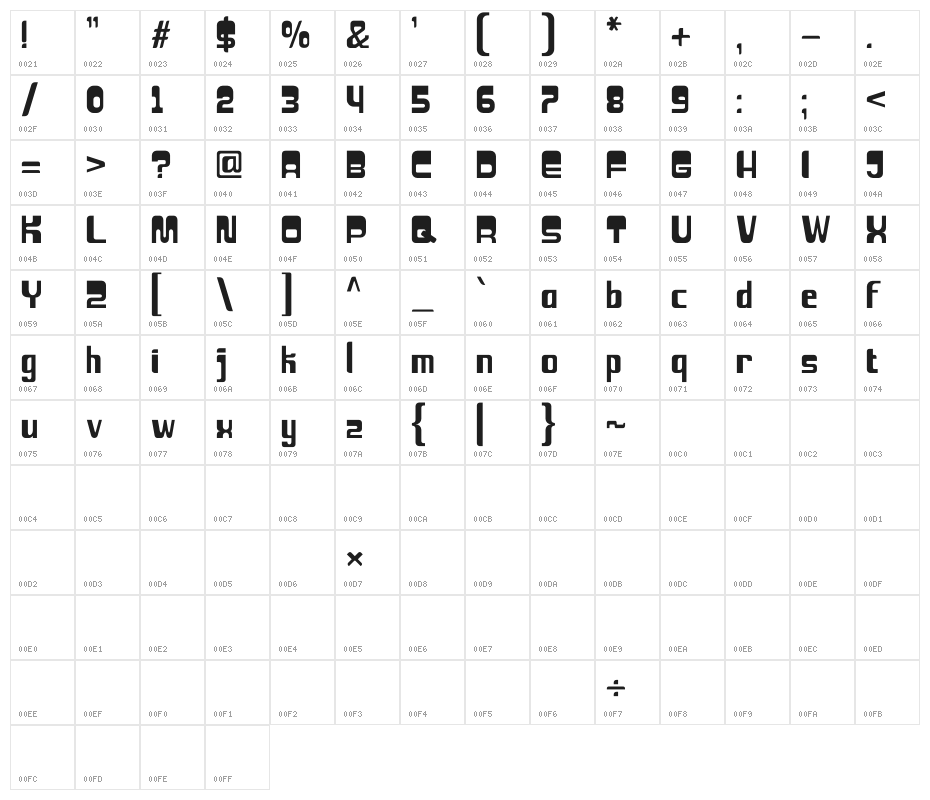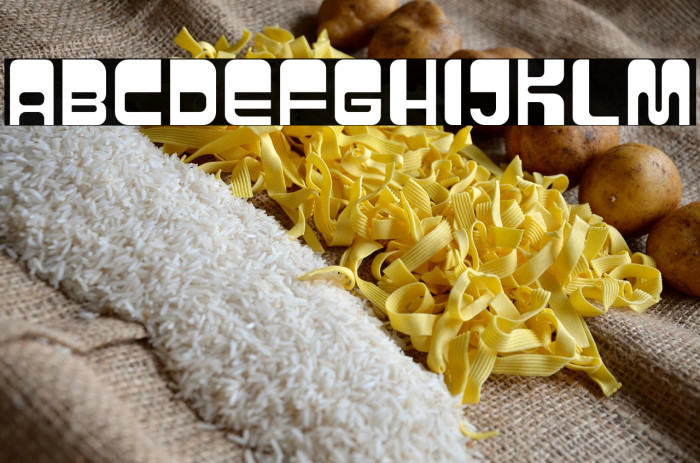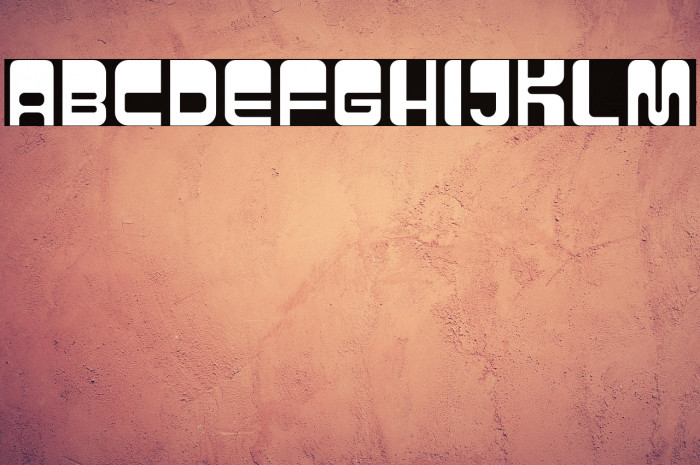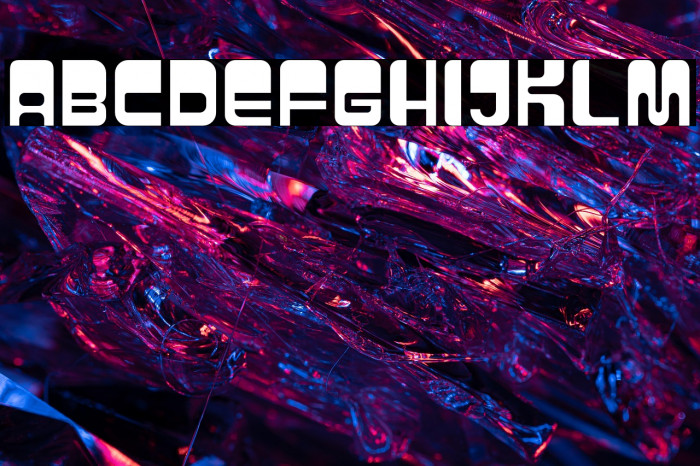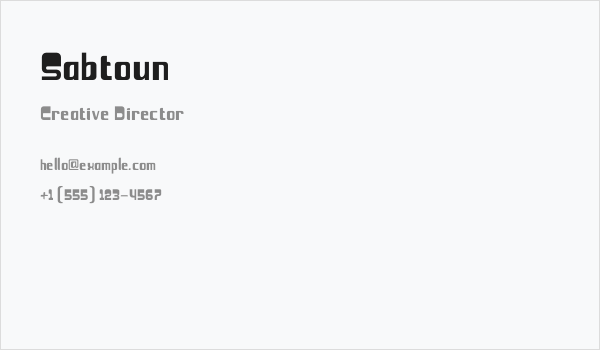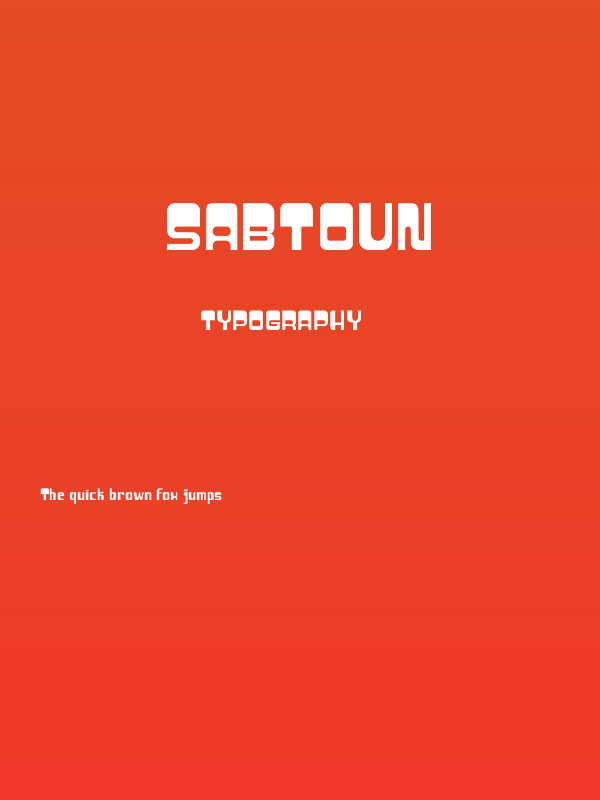
Sabtoun Font
✎ Thick
| 推荐项目 | This font is perfect for branding projects, logo design, poster headlines, and any creative project that requires a bold and modern aesthetic. |